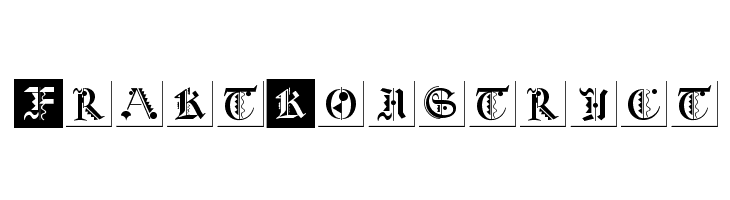
A bold, decorative Blackletter-style font with high contrast and intricate details.
An ornate Blackletter font with intricate, angular designs and historical elegance.
A traditional blackletter font with bold, ornate letterforms and a medieval aesthetic.
A modern Fraktur-inspired font with bold, ornate letterforms and a Gothic flair.
A modern Fraktur style font with sharp, angular forms and intricate detailing.
A traditional blackletter font with ornate, angular letterforms.
A bold, shadowed blackletter font with intricate details and a gothic aesthetic.
A bold, ornate Blackletter font with intricate details and a historical feel.
A classic blackletter font with bold, angular letterforms and a medieval aesthetic.